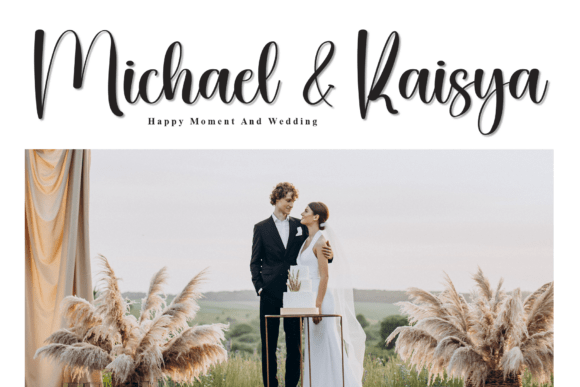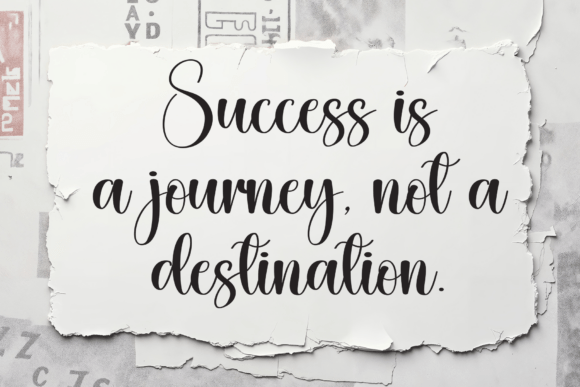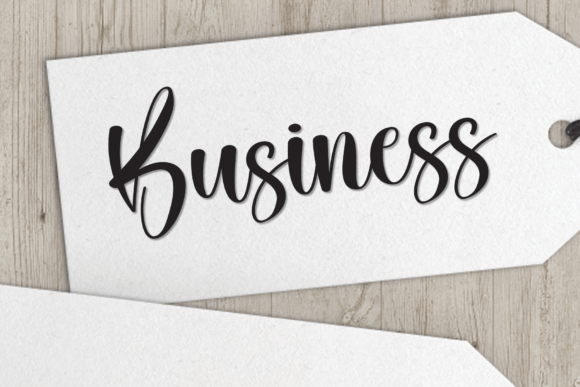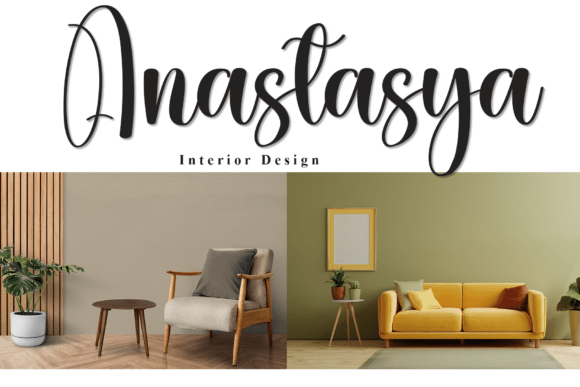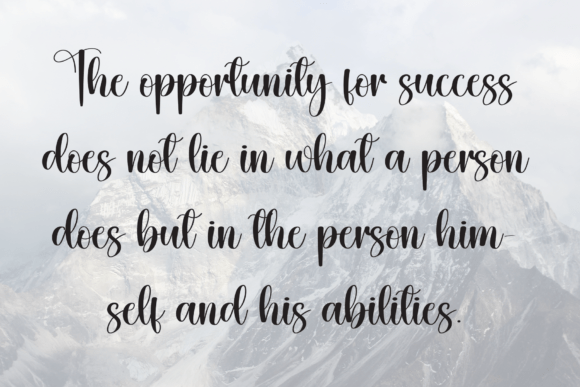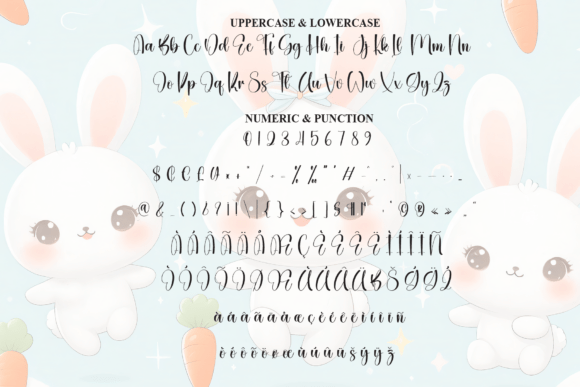
Hop into a World of Charm with Cutie Bunny Font
Are you looking for a font that can add a touch of sweetness and playfulness to your designs? Look no further than Cutie Bunny, a delightful display script that captures the essence of a “sweet-and-spirited” soul. This charming font is perfect for designers and crafters who want to create eye-catching and engaging content for children’s brands, lifestyle products, and social media.
The Unique Characteristics of Cutie Bunny Font
Cutie Bunny font features bouncy, high-contrast cursive letterforms that are uniquely characterized by rhythmic, hand-drawn loops and sweeping, whimsical swashes. These distinctive elements bridge the gap between traditional nursery storybooks and modern lifestyle branding, making it an ideal choice for a wide range of creative projects. The font’s playful structural weight and joyful personality make it perfect for adding a touch of whimsy and charm to any design.
Ideal Uses for Cutie Bunny Font
Cutie Bunny font is the premier choice for various creative projects, including:
- Independent Toy Branding: Add a touch of sweetness and playfulness to your toy branding with Cutie Bunny font. Its child-friendly design and whimsical feel make it perfect for toy packaging, labels, and marketing materials.
- Children’s Event Stationery: Create memorable and engaging stationery for children’s events, such as birthday parties, baby showers, and children’s festivals, with Cutie Bunny font.
- Artisanal Bakery Packaging: Add a touch of charm and whimsy to your bakery packaging with Cutie Bunny font. Its playful design and high-contrast letterforms make it perfect for labeling cupcakes, cookies, and other sweet treats.
- Social Media Headers: Create high-impact and engaging social media headers with Cutie Bunny font. Its bold and playful design makes it perfect for grabbing attention and standing out in a crowded online space.
Why Choose Cutie Bunny Font?
Cutie Bunny font offers a unique combination of playfulness, charm, and versatility, making it an ideal choice for designers and crafters. Here are just a few reasons why you should choose Cutie Bunny font for your next project:
- Unique and Eye-Catching Design: Cutie Bunny font features a distinctive and eye-catching design that is sure to grab attention and stand out in a crowded online space.
- Highly Versatile: Cutie Bunny font is highly versatile and can be used for a wide range of creative projects, from children’s branding to lifestyle products and social media.
- Easy to Read: Despite its playful design, Cutie Bunny font is easy to read and understand, making it perfect for use in a variety of contexts.
- Perfect for Branding: Cutie Bunny font is perfect for branding and can help you establish a consistent and recognizable visual identity for your business or product.
Tips for Using Cutie Bunny Font
Here are a few tips for using Cutie Bunny font effectively in your designs:
- Use it Sparingly: Cutie Bunny font is a bold and playful font, so it’s best to use it sparingly to avoid overwhelming your design.
- Pair it with Other Fonts: Cutie Bunny font pairs well with other fonts, such as sans-serif fonts, to create a visually appealing and balanced design.
- Experiment with Colors: Cutie Bunny font looks great in a variety of colors, so don’t be afraid to experiment and find the perfect color scheme for your design.
- Have Fun: Most importantly, have fun with Cutie Bunny font! Its playful design and whimsical feel make it perfect for adding a touch of personality and charm to your designs.
Cutie Bunny font is a delightful display script that captures the essence of a “sweet-and-spirited” soul. Its unique characteristics, versatility, and playful design make it perfect for a wide range of creative projects, from children’s branding to lifestyle products and social media. With its high-contrast letterforms, rhythmic loops, and whimsical swashes, Cutie Bunny font is sure to add a touch of charm and whimsy to any design. So why not hop into a world of charm with Cutie Bunny font and see the difference it can make in your designs?